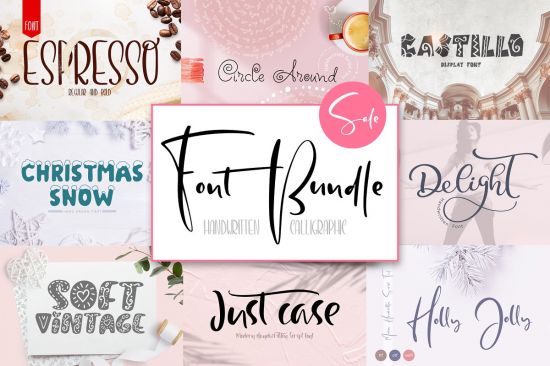
Circle Around handwritten Kids Font includes unique swirly upercase and lowercase characters, number and punctuations. This font have alternatives in characters - & c h k l m n o r s t y z. And ligatures - Th dt ff ft ht kk kl kt ll lt oo rr ss st th tt.